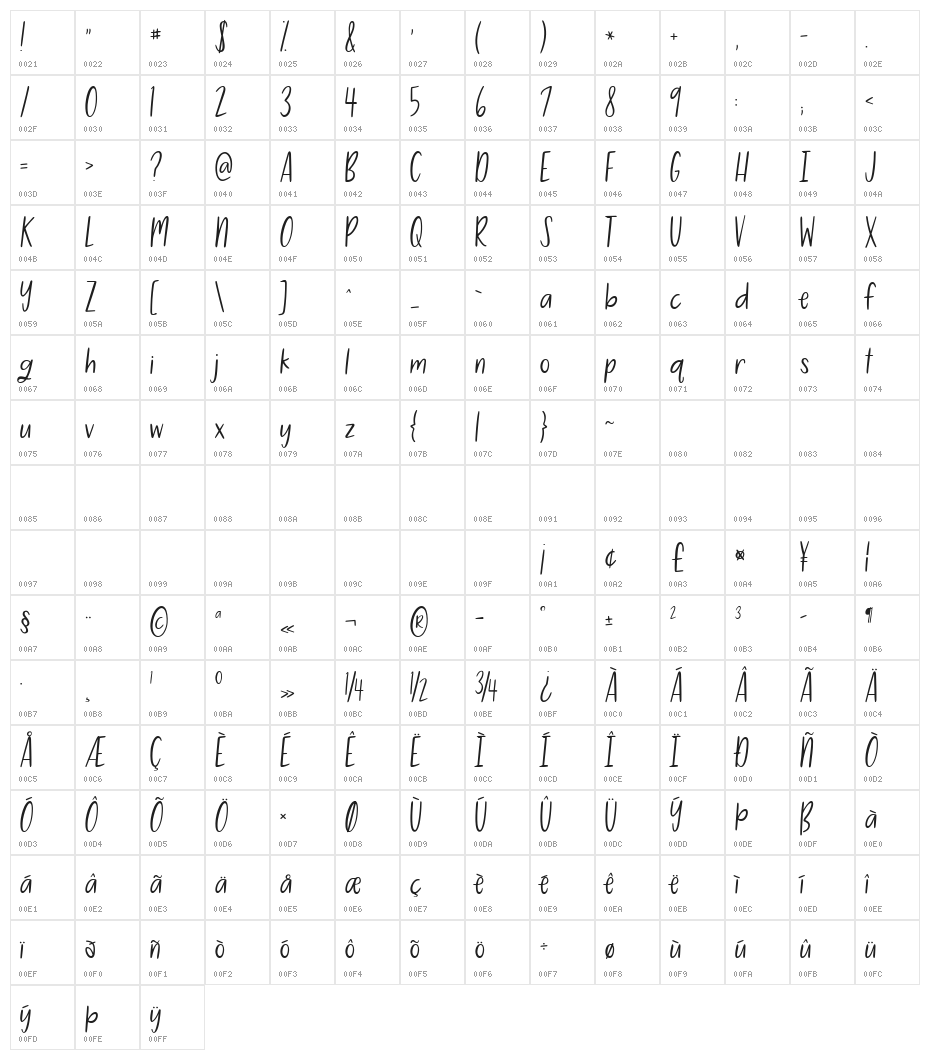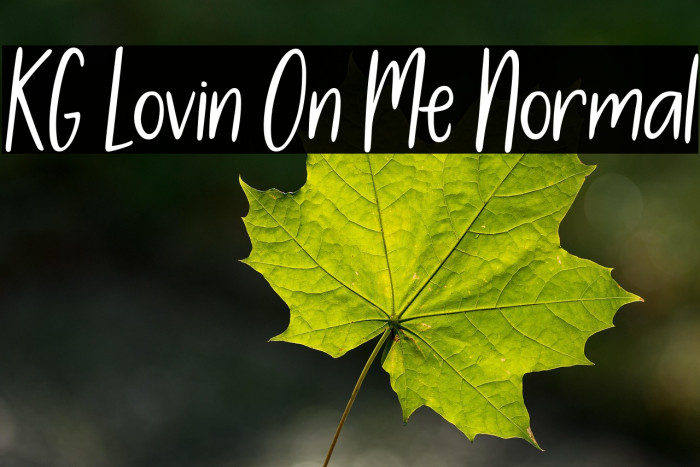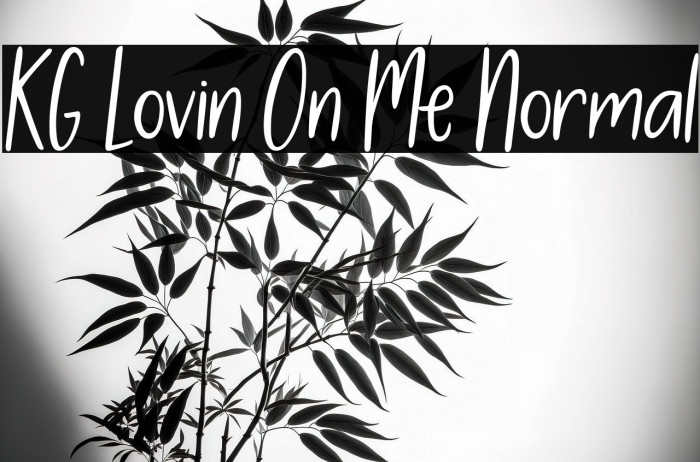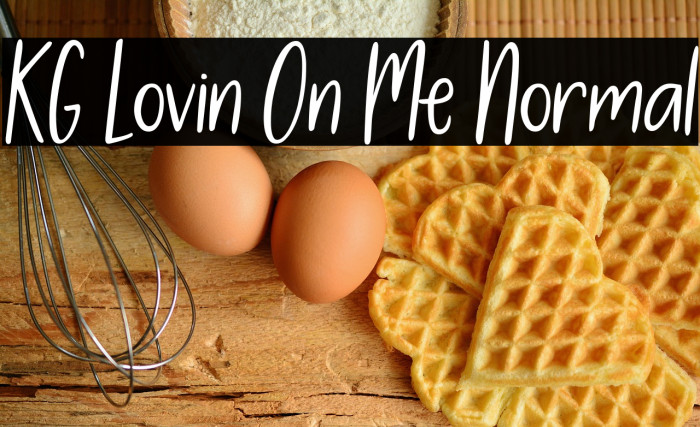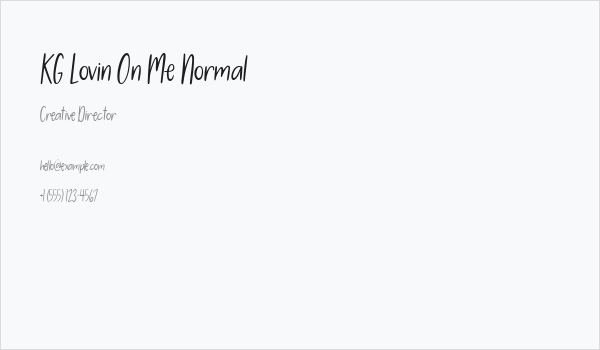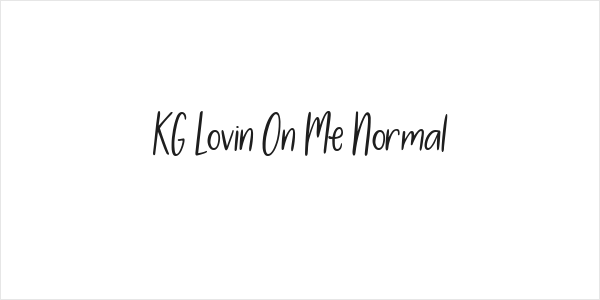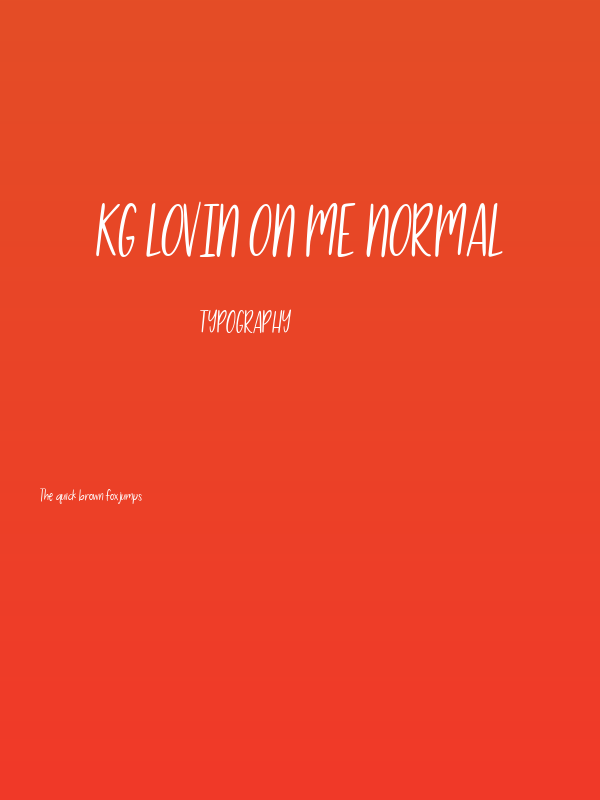
KG Lovin On Me Normal Font
KG Lovin On Me Normal Description
This font features a playful and casual handwritten style, characterized by its tall, narrow letters with a slight slant. The strokes are smooth and fluid, giving it a friendly and approachable appearance. The uppercase and lowercase letters maintain a consistent style, with rounded edges and a slight variation in stroke width that adds to its charm. The numbers and special characters are designed to match the overall aesthetic, ensuring a cohesive look across all text elements. This font is versatile and can be used to add a personal touch to various design projects.
| Use Case | Logos, Headlines, Informal text |
| Proposed Projects | Ideal for greeting cards, invitations, personal branding, and social media graphics. |